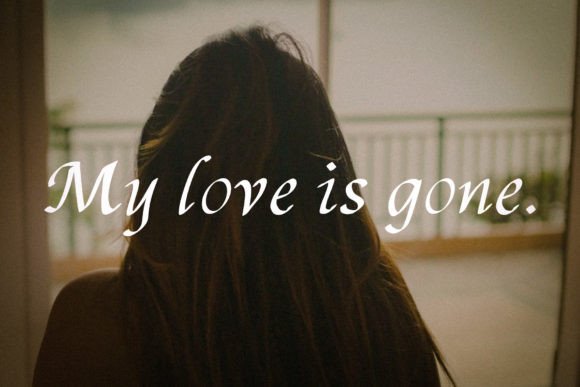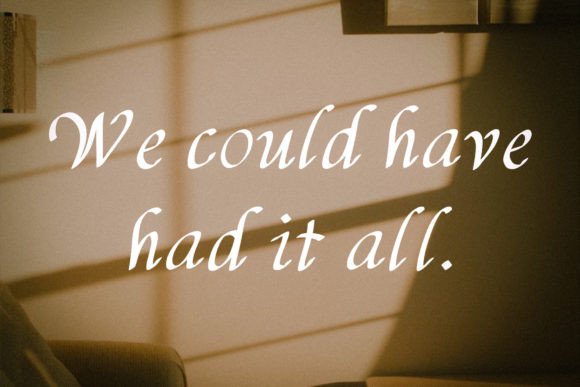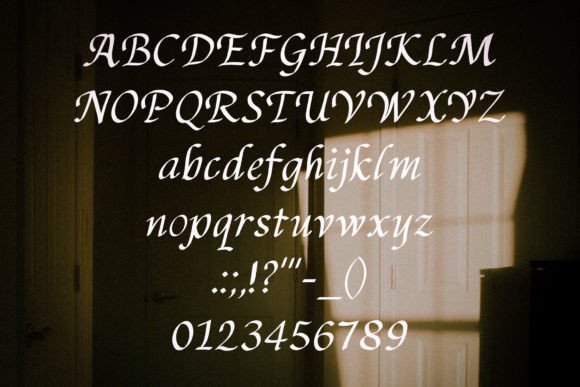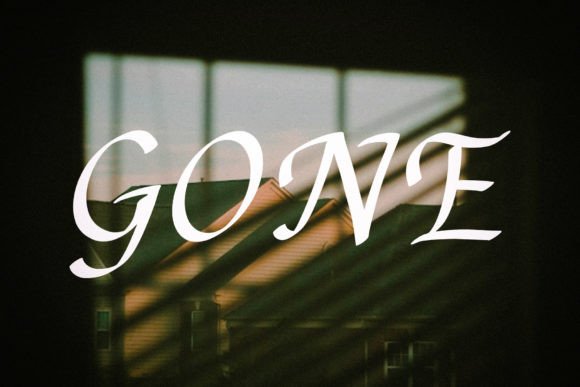
Gone Font: Elevating Creativity with Elegant Handwritten Style
In the realm of graphic design, typography plays a pivotal role in conveying emotions, expressing creativity, and capturing the audience’s attention. Among the numerous fonts available, the Gone Font stands out with its elegantly handwritten and shaped style, transforming creativity into reality. In this article, we’ll delve into the world of fonts, explore the characteristics of the Gone Font, and discuss its significance in visual design.
What is a Font?
A font is a graphical representation of text that consists of a set of characters, letters, and symbols with a particular style and size. It’s a crucial element in creating visual designs, as it can evoke specific emotions and convey messages through its appearance. Fonts can be categorized into various types, including serif, sans-serif, script, and display fonts, each with its unique characteristics and uses.
The Power of Typography in Design
Typography is a fundamental aspect of graphic design, as it can make or break the visual appeal of a design. A well-chosen font can elevate the overall aesthetic, convey the brand’s personality, and engage the target audience. In contrast, a poorly selected font can lead to a design that looks amateurish, unprofessional, or even illegible.
Introducing Gone Font: Elegantly Handwritten and Shaped
The Gone Font is a remarkable typeface that embodies elegance and sophistication. Its handwritten style exudes a sense of warmth, friendliness, and approachability, making it perfect for designs that require a personal touch. The font’s shapes are carefully crafted to create a harmonious balance between curves and lines, resulting in a visually stunning appearance.
Key Features of Gone Font
- Elegant Handwritten Style: The Gone Font boasts a beautiful, handwritten appearance that adds a touch of sophistication to any design.
- Unique Character Set: The font features a comprehensive character set, including letters, numbers, and symbols, ensuring versatility and flexibility.
- High-Quality Design: The Gone Font is meticulously designed to ensure high-quality rendering, even at small sizes.
- Multi-Language Support: The font supports multiple languages, making it an excellent choice for global brands and designers.
Use Cases for Gone Font
The Gone Font is an excellent choice for various design projects, including:
- Branding and Logo Design: The font’s elegant style makes it perfect for creating sophisticated brand identities and logos.
- Digital Marketing Materials: The Gone Font can be used to create engaging digital marketing materials, such as social media graphics, email newsletters, and website headers.
- Print Design: The font’s high-quality design ensures it looks great in print, making it suitable for business cards, brochures, and posters.
- Crafting and DIY Projects: The Gone Font’s handwritten style makes it an excellent choice for crafting and DIY projects, such as handmade cards, scrapbooking, and journaling.
Tips for Using Gone Font Effectively
To get the most out of the Gone Font, consider the following tips:
- Pair with Complementary Fonts: Combine the Gone Font with complementary fonts to create visual interest and hierarchy.
- Experiment with Colors and Textures: Add depth and dimension to your design by experimenting with different colors and textures.
- Pay Attention to Line Spacing and Kerning: Ensure optimal readability by adjusting line spacing and kerning to suit your design.
| Font Name | Gone Font |
The Gone Font is an exceptional typeface that can elevate your designs with its elegantly handwritten and shaped style. Its versatility, high-quality design, and multi-language support make it an excellent choice for various design projects. By understanding the power of typography and using the Gone Font effectively, designers and crafters can transform their creativity into reality and create stunning visual designs that captivate their audience.